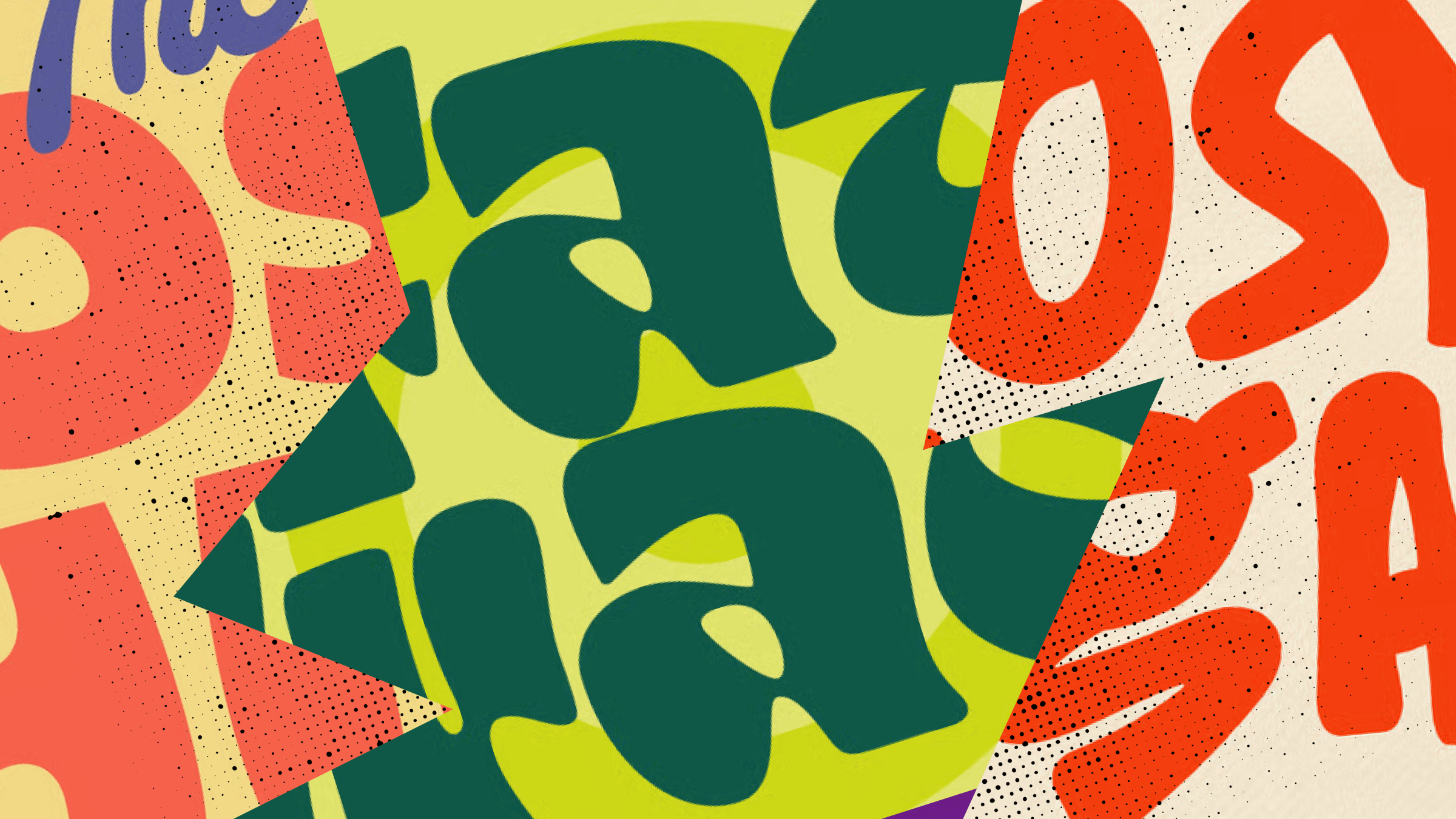
Cute and cozy fonts: The warm, human typography trend defining 2026
Squeezable letterforms, cuddly serifs, and nostalgic warmth — cute and cozy fonts are a welcome departure from cold minimalism. Discover the trend defining 2026 and the fonts to try now.
Cute and cozy fonts
Welcome in 2026 with the cute and cozy font trend, the design aesthetic defined by squeezable letterforms, cuddly serifs, and nostalgic warmth. Fonts don’t have to be serious to be seriously stylish; these 2026 font trends mark a welcome departure from cold minimalism and corporate typography.
We’re all seeking more comfort in our lives. The world can be a scary place, so it seems inevitable that individuals are turning to childlike design and escapist styling. The cute and cozy font trend reflects the rise of ‘cozy content’ on social media and more broadly across brand design. Drawing on influences from Korean aesthetics, pop culture, and emotional design, you can already see cute and cozy fonts in action across major marketing projects and emerging social media aesthetics.
Make human connection and warmth a priority in your projects in 2026 with this cute and cozy font collection; it’s a shortcut to design success!
What is the cute and cozy font trend?
One of the biggest 2026 font trends, the cute and cozy font trend, reflects a general shift in design towards warm typography and emotionally charged branding fonts
As for their appearance, it’s more about capturing the mood than adhering to a strict font type. Cute and cozy fonts can be serifs, sans serifs, or handwritten fonts, but they all tend to have a rounded, organic appearance with playful ligatures and quirky imperfections. Cartoons, Japanese Manga, South Korean ‘cute’ culture (summed up by the word ‘aegyo’, which describes a deliberate expression of cuteness or playfulness), and naive design are all influences on the cute and cozy font trend.
Why warmth is returning to typography
With the rise of digital devices in the 2010s and early 2020s came a resurgence in minimalist typography. Whether it was Apple’s SF Pro or Google’s Roboto, clean sans-serif fonts have dominated website and app design to date because they’re easy to read, streamlining UX journeys and improving accessibility; however, they’re arguably lacking in human emotion. It feels like the right time for a change.
Warm, emotional visual design is back on the design radar after years of clinical minimalism and formality. Ornate, formal serifs look beautiful and still have their place in luxury branding, but we’re starting to see a major shift towards warm typography that brings emotion and personality to the message.
Running alongside this resurgence in friendly serif fonts and handwritten fonts is the shift towards cute, childlike design across the board, and it’s no longer limited to kids. ‘Kidult’ products have rocketed in success over the past few months, with more adults turning to cutesy products to get them through a bad Monday.
A case in point? British toy brand Jellycat has a cult following among very young audiences, but the business has discovered a new niche marketing cute ‘plushies’ to adult audiences in the US, China, and Japan.
Meanwhile, K-pop and the cute country aesthetic of Sabrina Carpenter have taken over social media feeds, with cozy pop futuristic design, naive handwritten fonts, and nostalgic styling all adding up to a feel-good pop package.
While the cute trend kicked off in pop culture and on social media, it’s now transitioning into the design world, with brand identities opting for warm typography over corporate aesthetics. We’re also seeing huge search traction on Google and Envato for “handwritten fonts,” “soft serif fonts,” and “friendly display typefaces.” Consider cute and cozy fonts the new Hygge; it’s just less adult (and a whole lot more fun) this time around!
What defines cute and cozy fonts?
Cute things (kittens, Baby Yoda) have exaggerated, rounded features that draw you in for a cuddle. Cute and cozy fonts are no different!
One of the most endearing type design styles, the cute and cozy font trend features rounded corners and open counters, lending letterforms soft, organic curves and low contrast. Friendly serif fonts might have playful ligatures that offset the formality of a normal serif, while handwritten fonts might look cartoonish or childlike in style.
These 2026 font trends are about embracing imperfections for a huggable effect, banishing sterile traits in favor of quirky details that lend your type more warmth and friendliness. Cute and cozy fonts have a range of influences, from mid-century children’s books to nostalgic early web ‘bubble’ typefaces, and can vary widely in style. So throw out the minimalism rulebook (for now), and embrace a new kind of cuddly typeface for your projects.